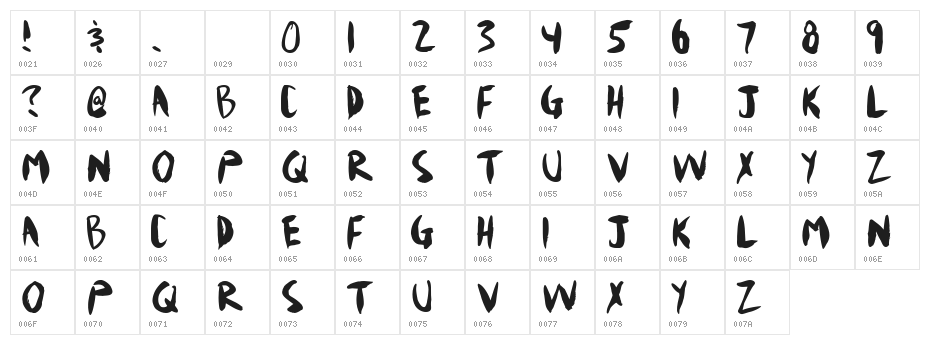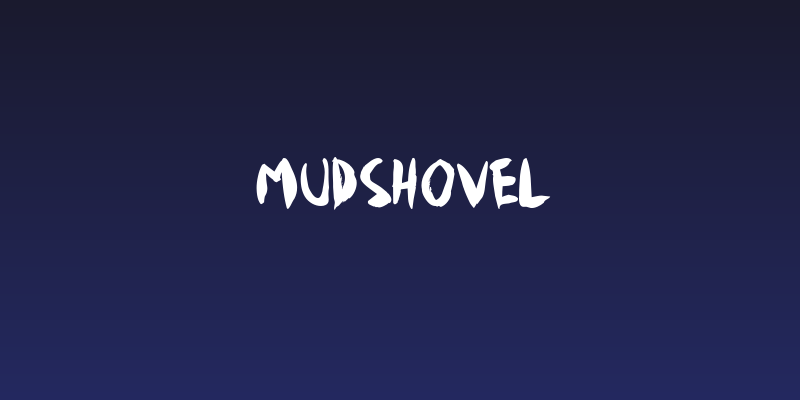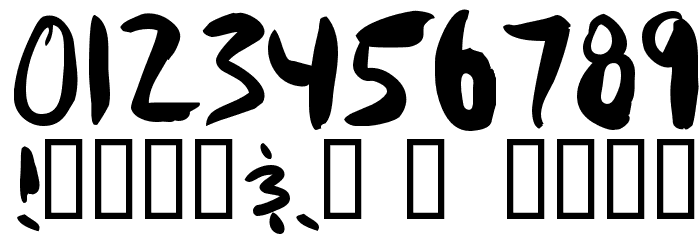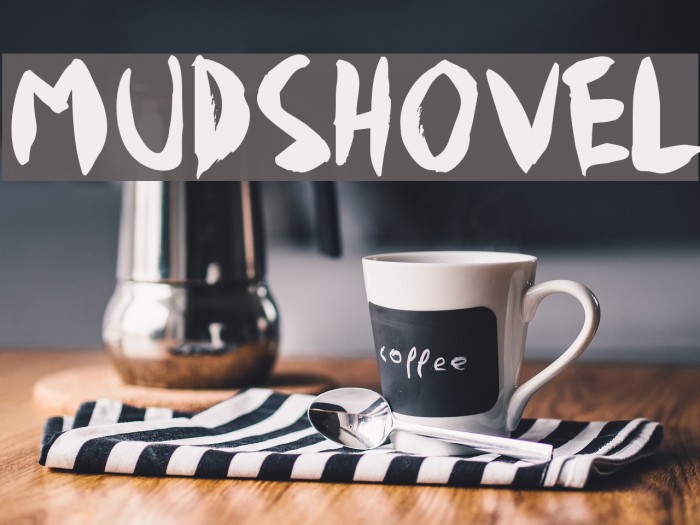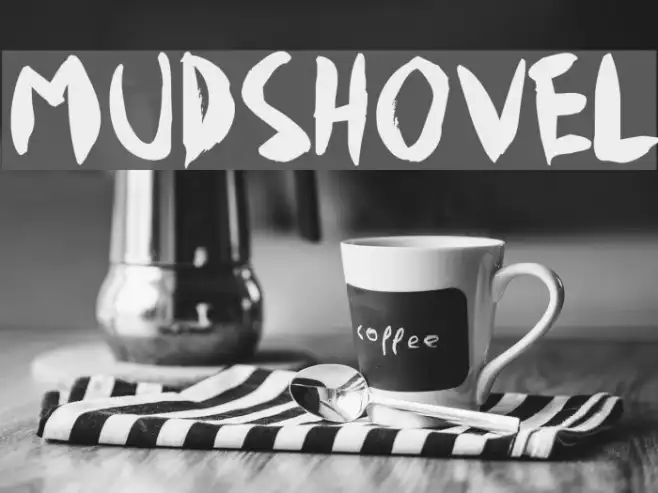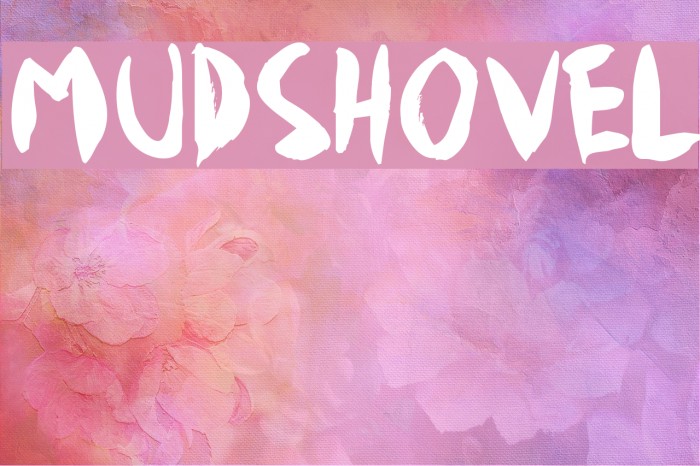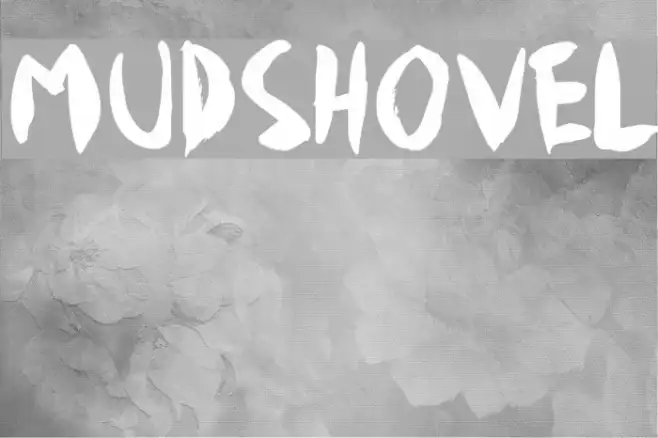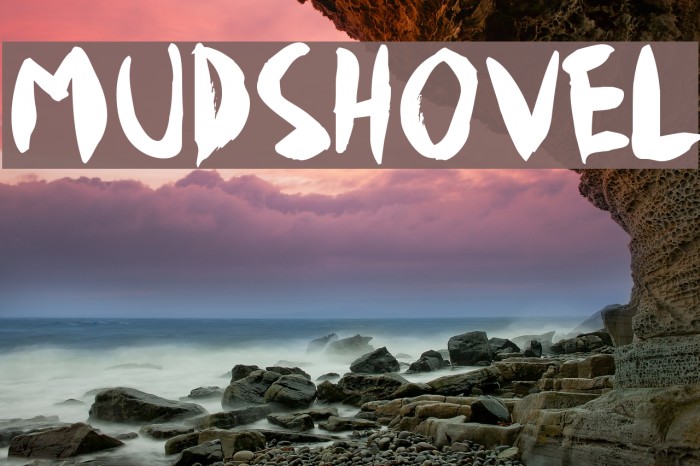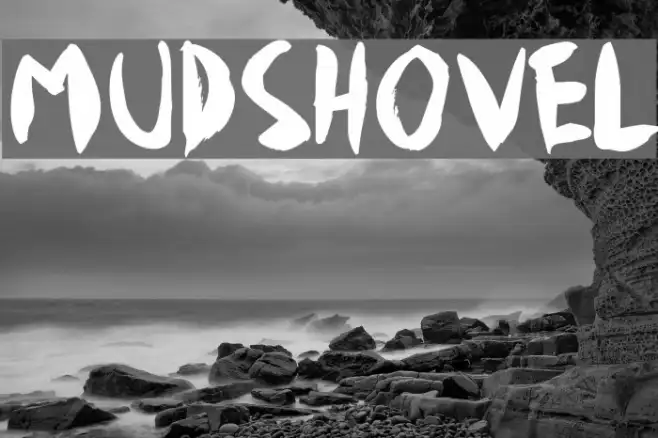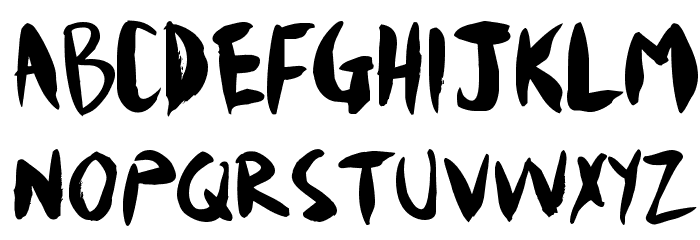
Mudshovel Font
Mudshovel Description
This font features a bold and expressive brush style, characterized by its dynamic and energetic strokes. The letters exhibit a hand-painted appearance, with uneven edges and varying thickness, giving it a raw and organic feel. The uppercase and lowercase letters maintain a consistent style, while the numerals and special characters complement the overall aesthetic. This font's unique and artistic design makes it suitable for projects that require a personal and creative touch.
MUDSHOVEL UPPERCASE
MUDSHOVEL LOWERCASE
MUDSHOVEL OTHER CHARS